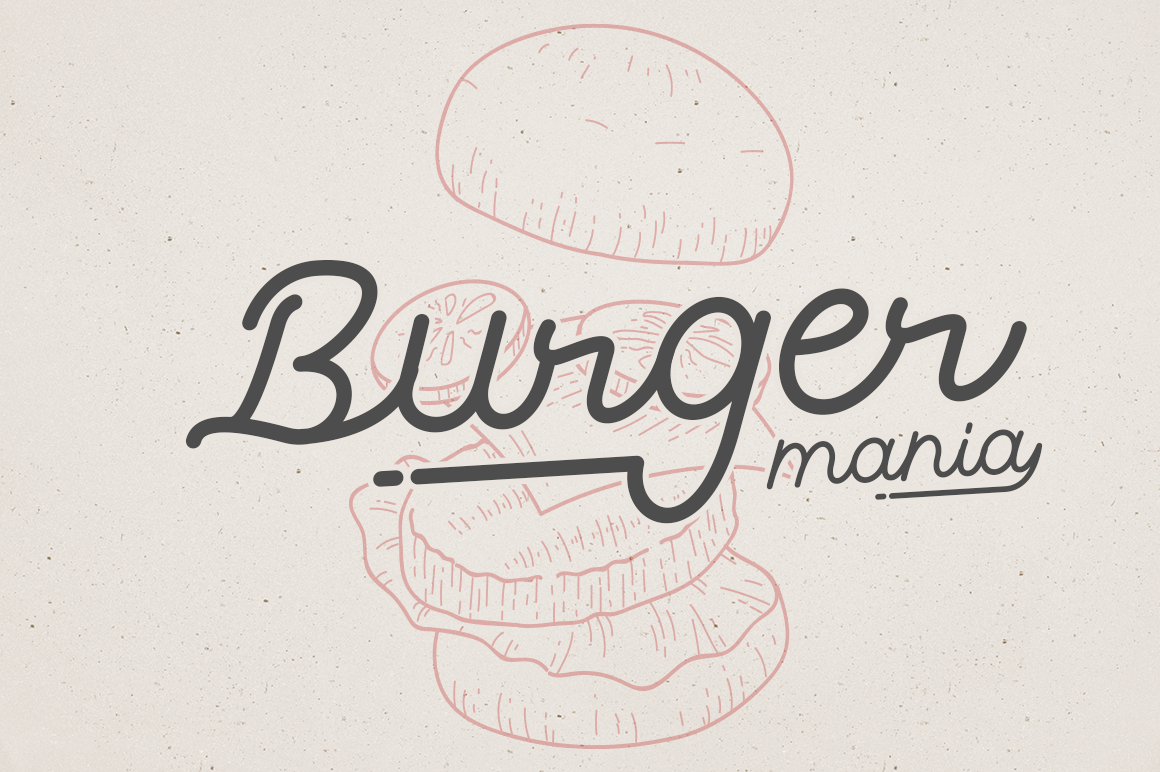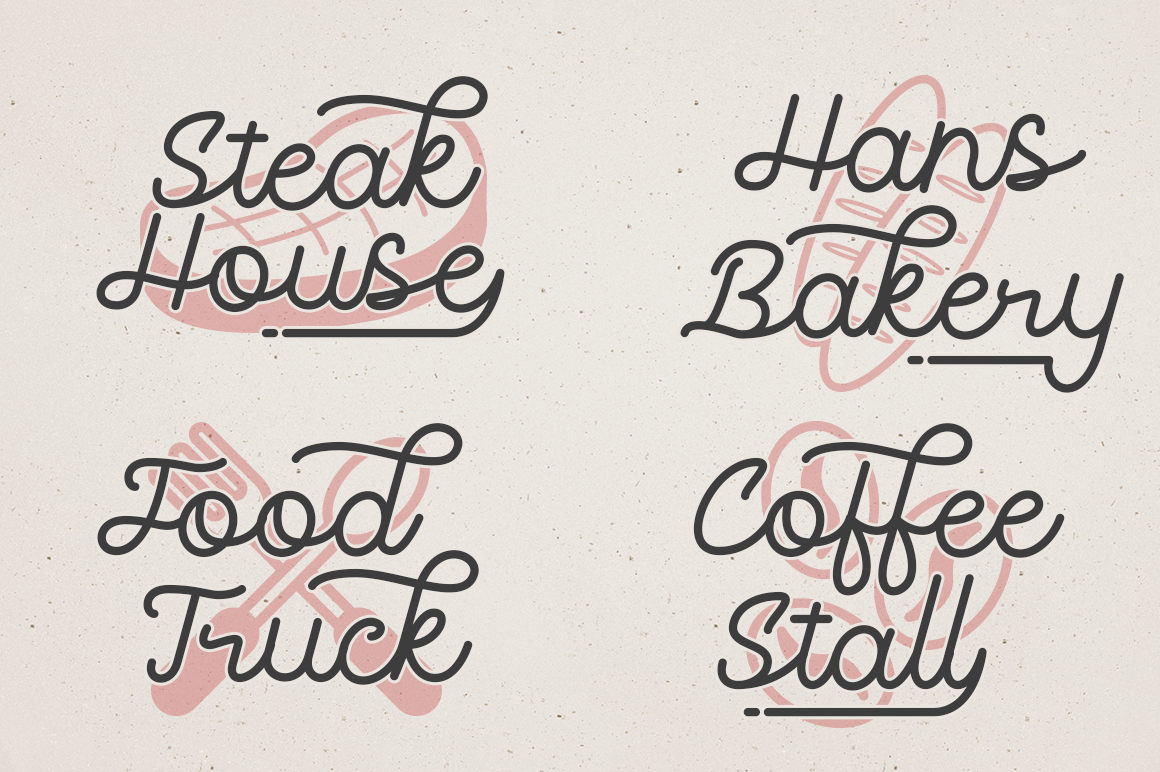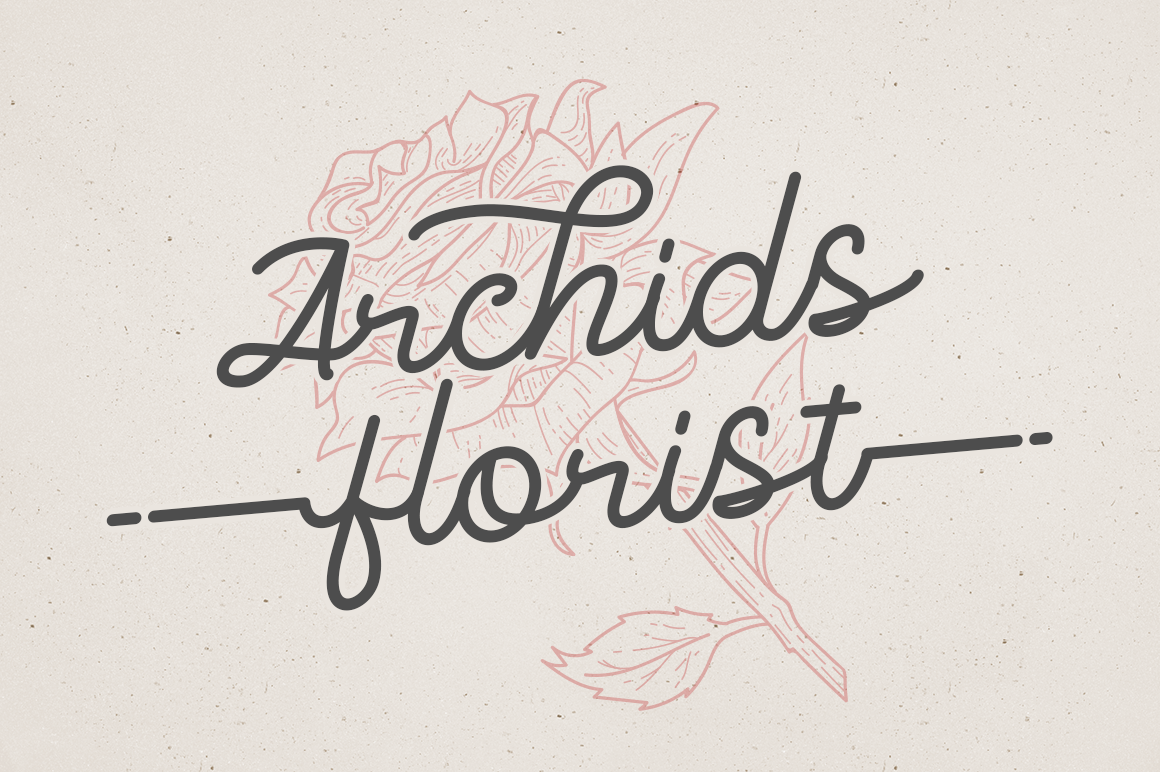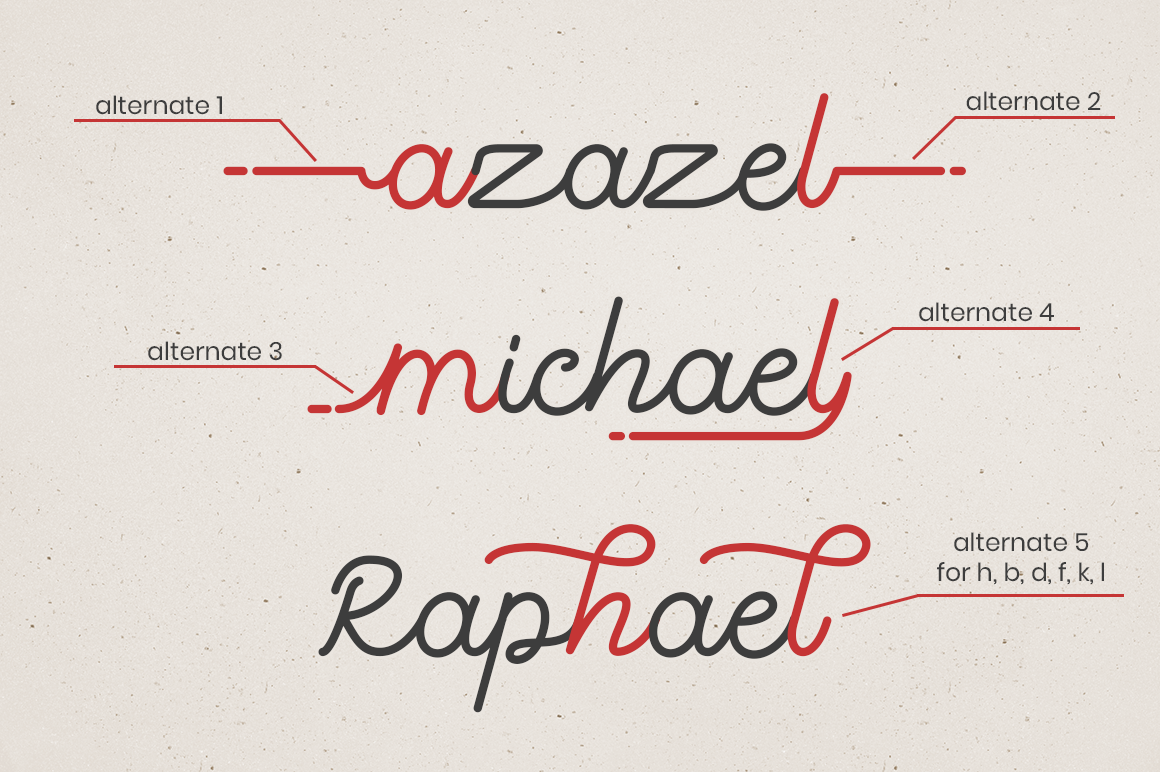
Rogue One Free Font
Rogue One Free Font one is a monoline typeface font, it includes 5 alternate you can combine it to make amazing letter form. This free typeface was designed by talented Attype Studio. If you like it don’t forget to check out the full version.